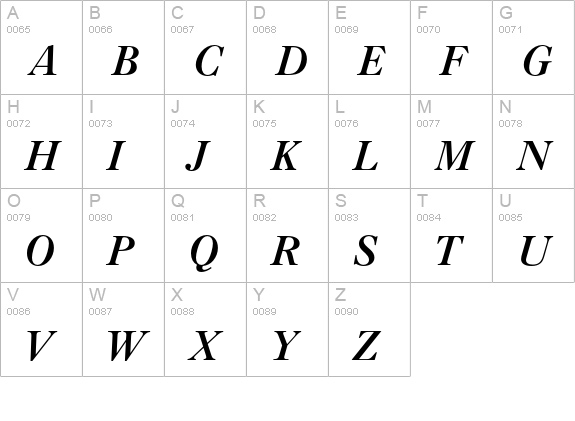
Caslon Bold Italic Font Details
Caslon Bold Italic is a strong, high-contrast, italic variant in the Caslon typeface family \xE2\x80\x94 well suited to headlines, attention-grabbing titles, and strong calls-to-action.
Caslon Bold Italic is a timeless and elegant font that exudes sophistication and class. With its bold weight and slanted italics, this typeface is perfect for adding emphasis and style to any design project. The robust serifs and fluid curves of Caslon Bold Italic create a strong visual impact, making it ideal for headlines, titles, and branding materials. What sets Caslon Bold Italic apart is its versatility - it can be used in a variety of settings, from print materials to digital designs, without losing its distinctive charm. Whether you're creating a vintage-inspired poster or a modern website, this font will make a statement and elevate your content. And the best part? Caslon Bold Italic is available for free download at FontsMarket.com. So you can easily access this premium font and use it in your projects without any cost. Don't miss out on adding Caslon Bold Italic to your font collection and take your designs to the next level.